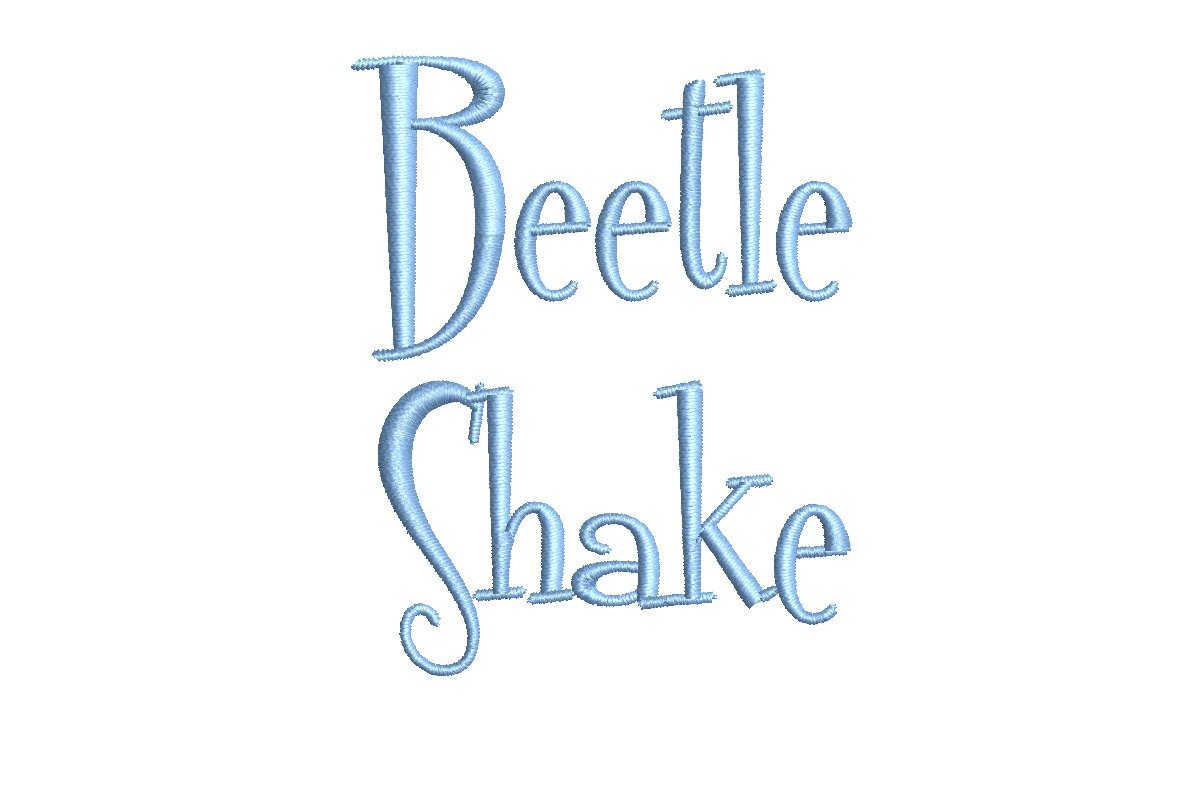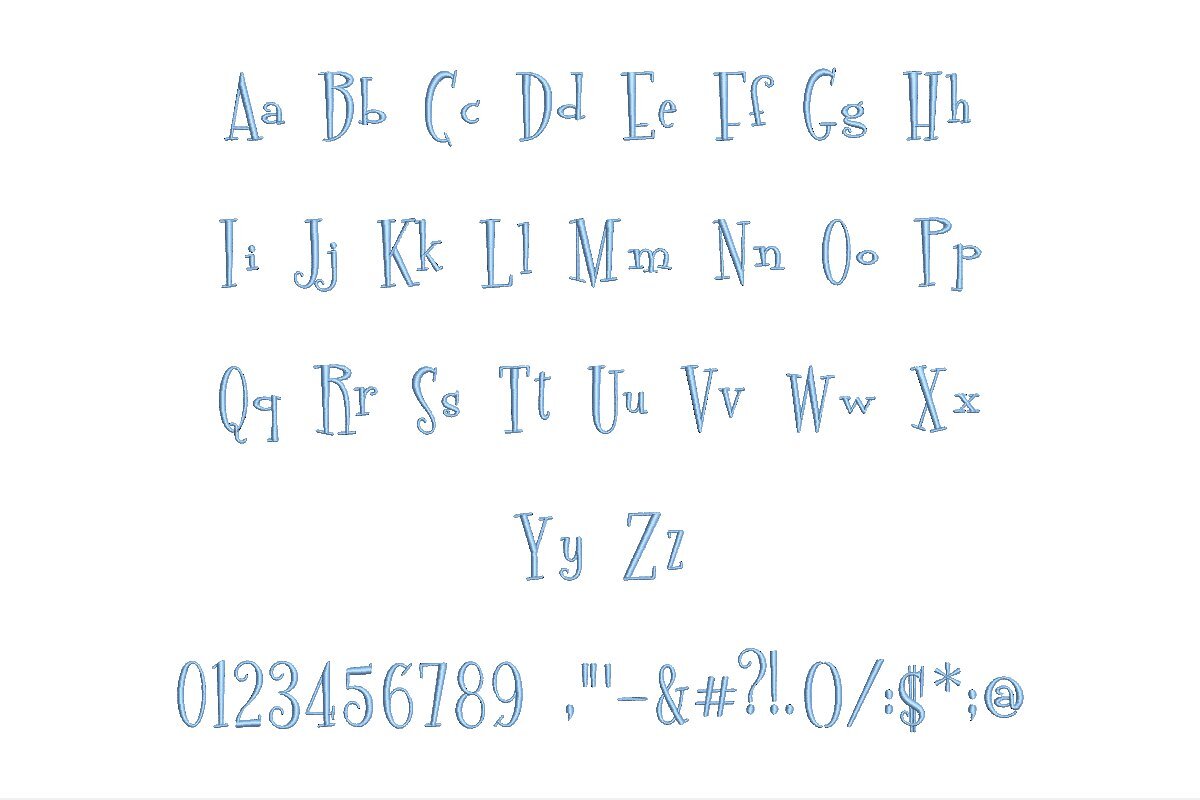
Beetle Shake Embroidery Font
Introducing Beetle Shake ESA Font – Your Ultimate Embroidery Companion for Wilcom Studio e4.5.6 and Hatch 3 Versions and Beyond! Elevate your embroidery game with this versatile and fully-compatible typeface. Crafted with precision and creativity in mind, Beetle Shake ESA Font ensures seamless integration with Wilcom Studio e4.5.6 and Hatch 3 and higher versions, providing unmatched design flexibility. Whether you're creating logos, monograms, or intricate designs, this font's smooth contours and impeccable stitches will bring your visions to life. Unlock endless possibilities and bring your embroidery projects to the next level. Get the Beetle Shake ESA Font now and revolutionize your embroidery experience!